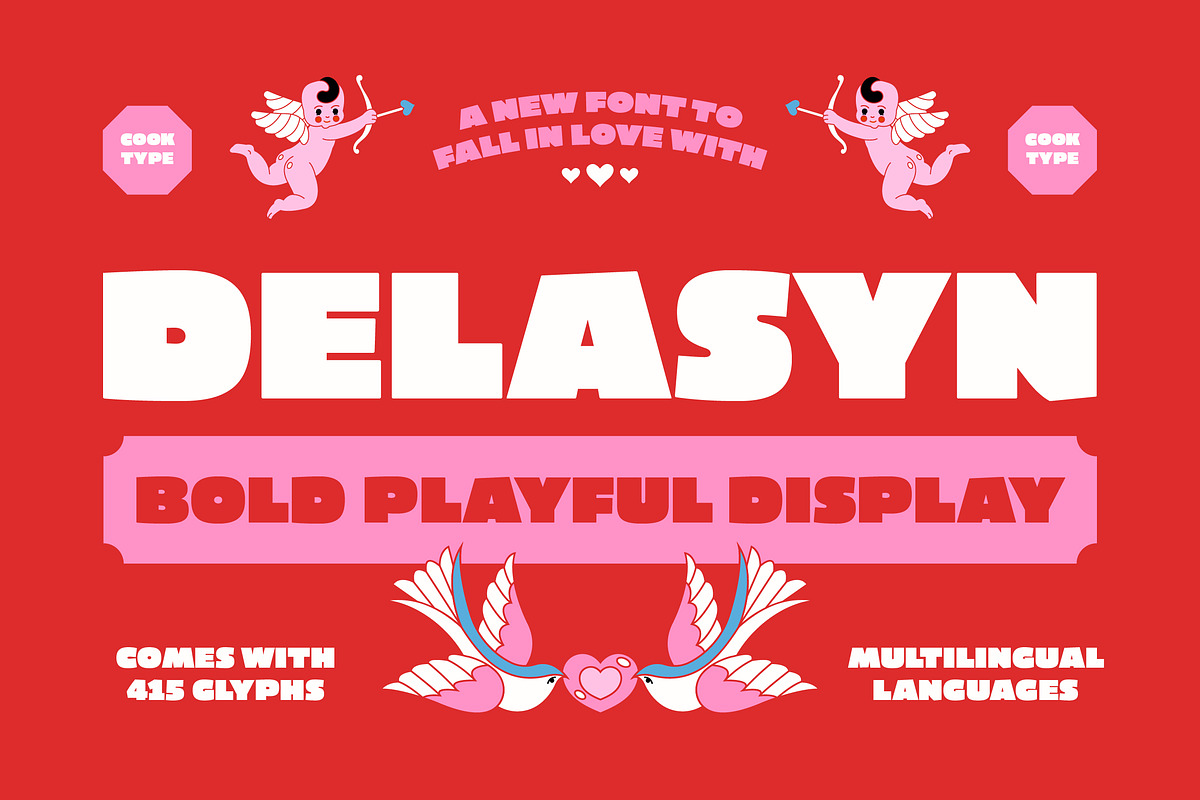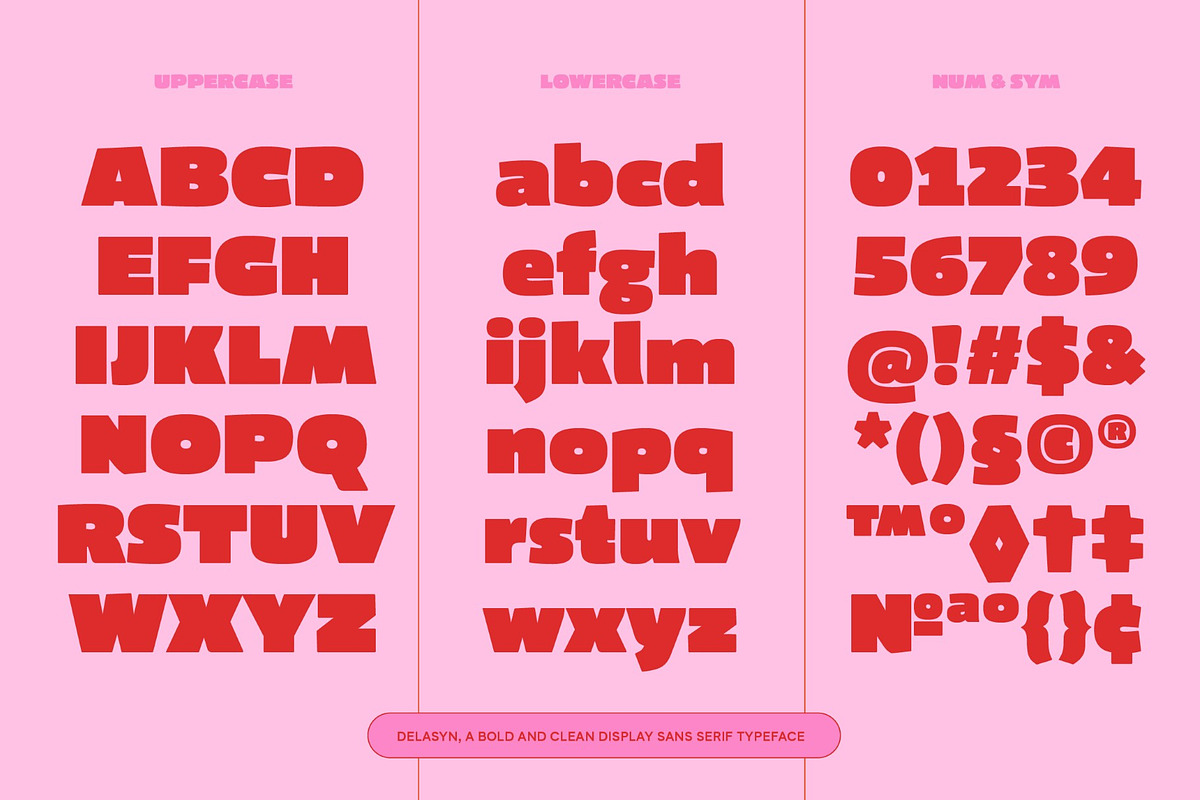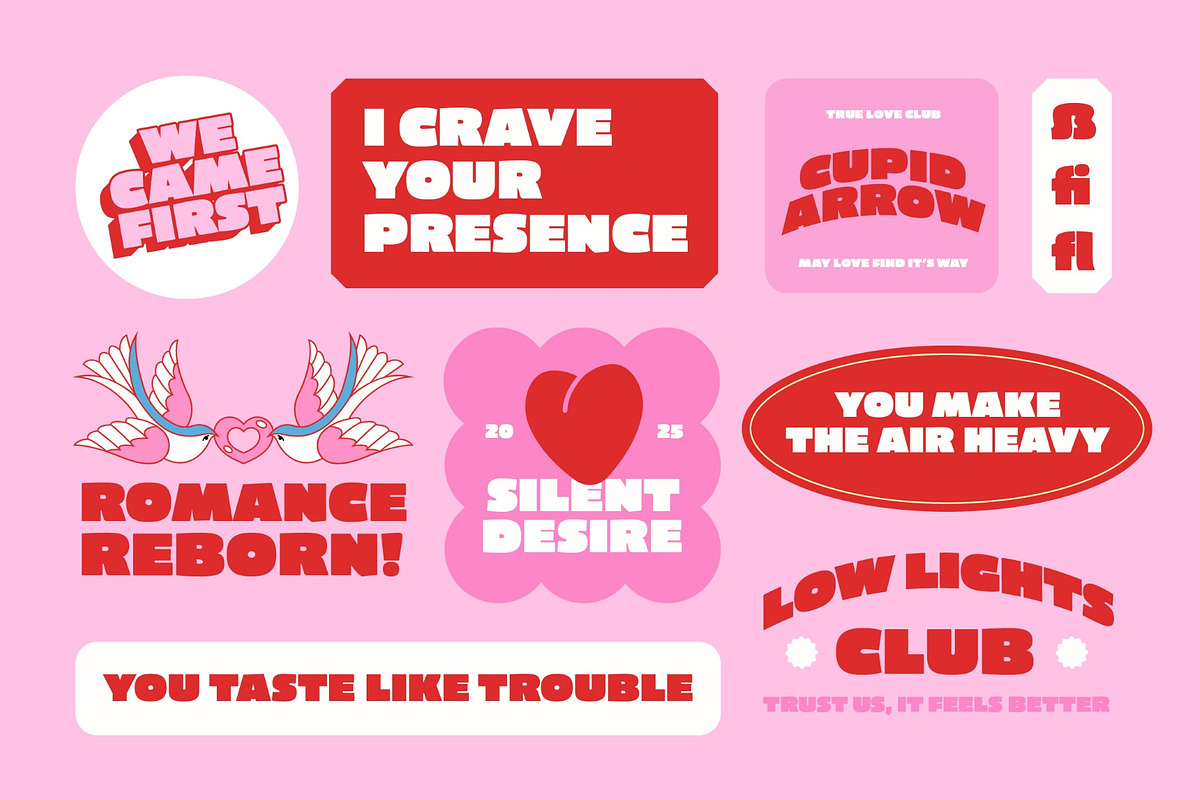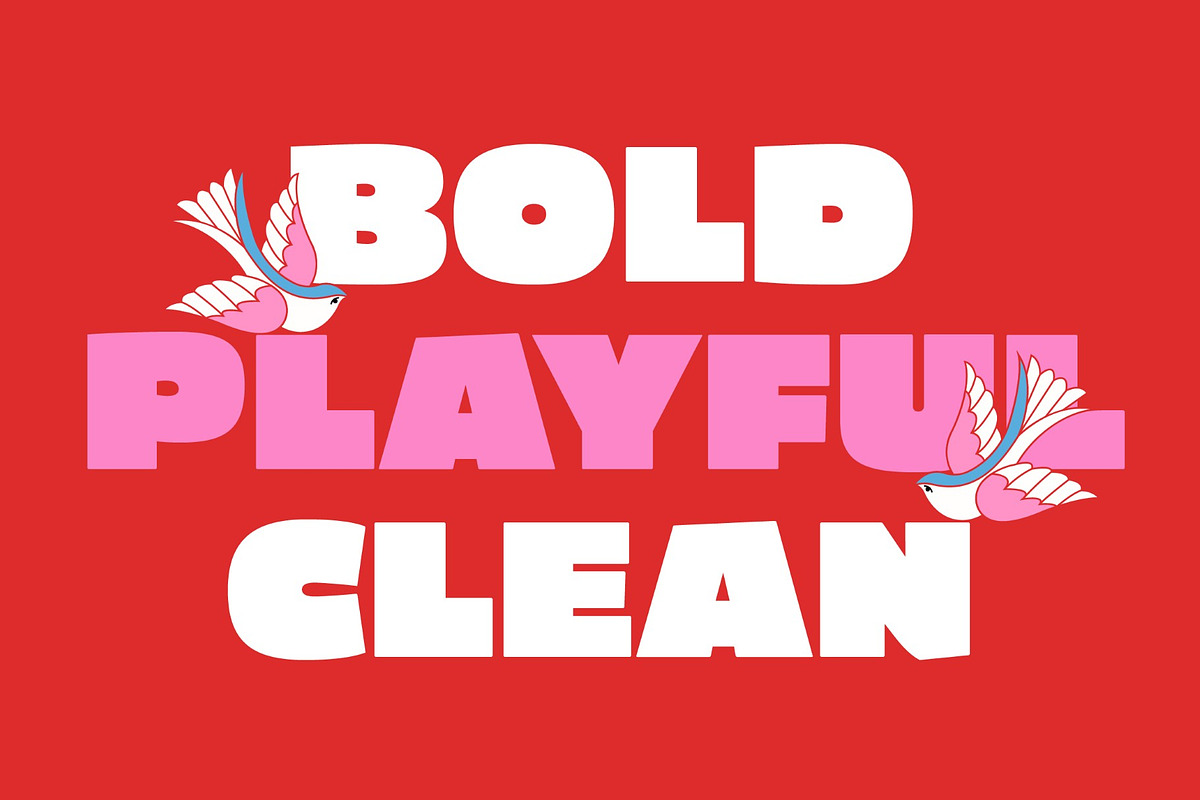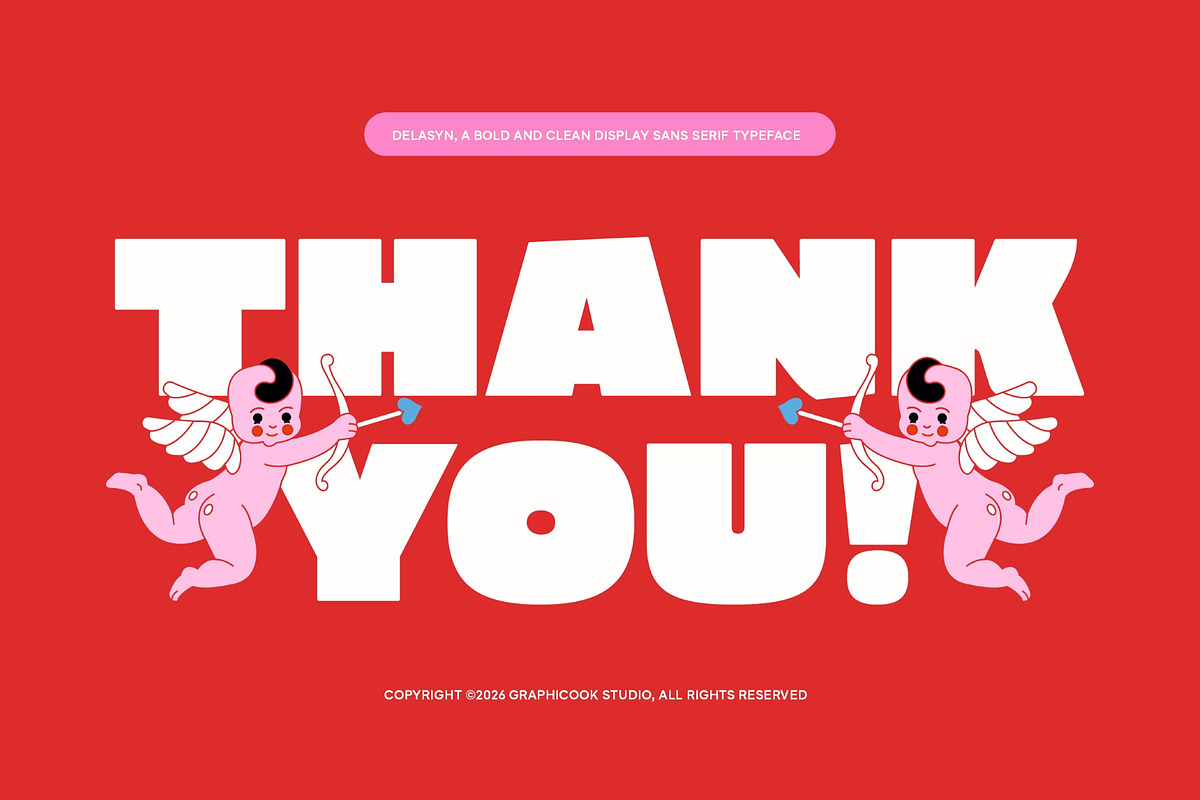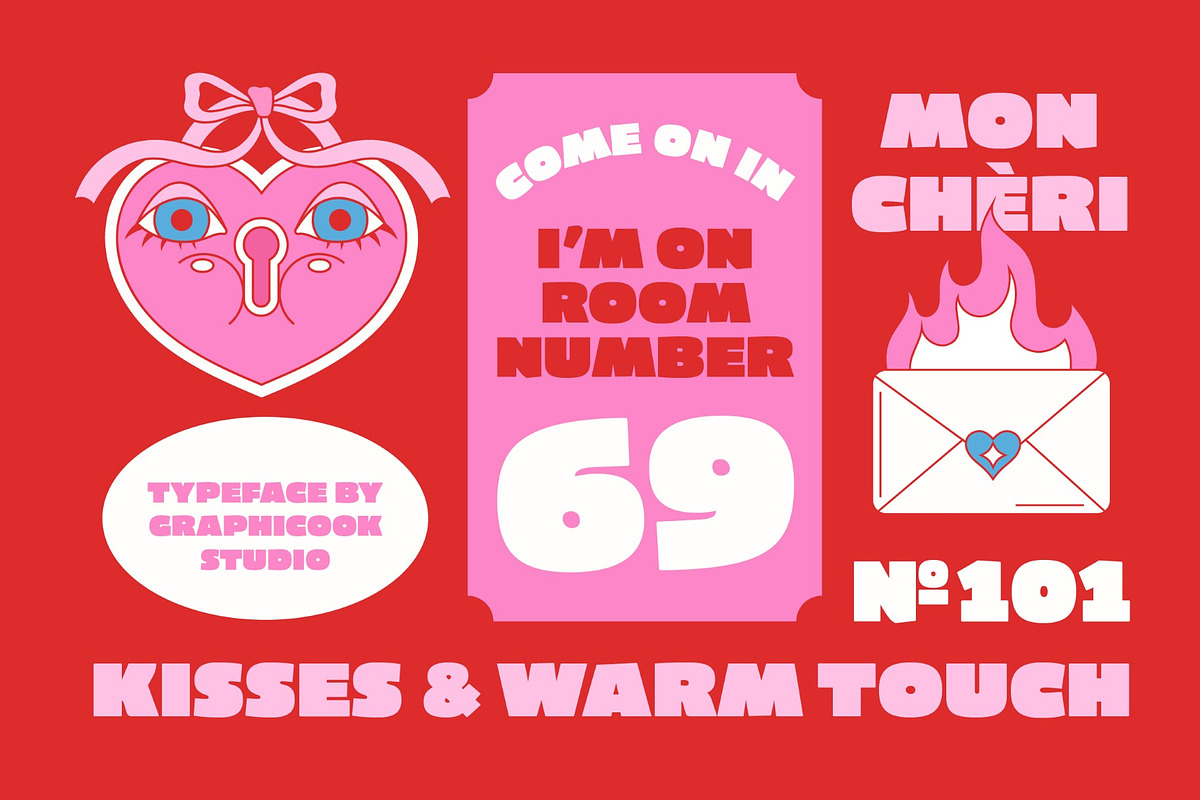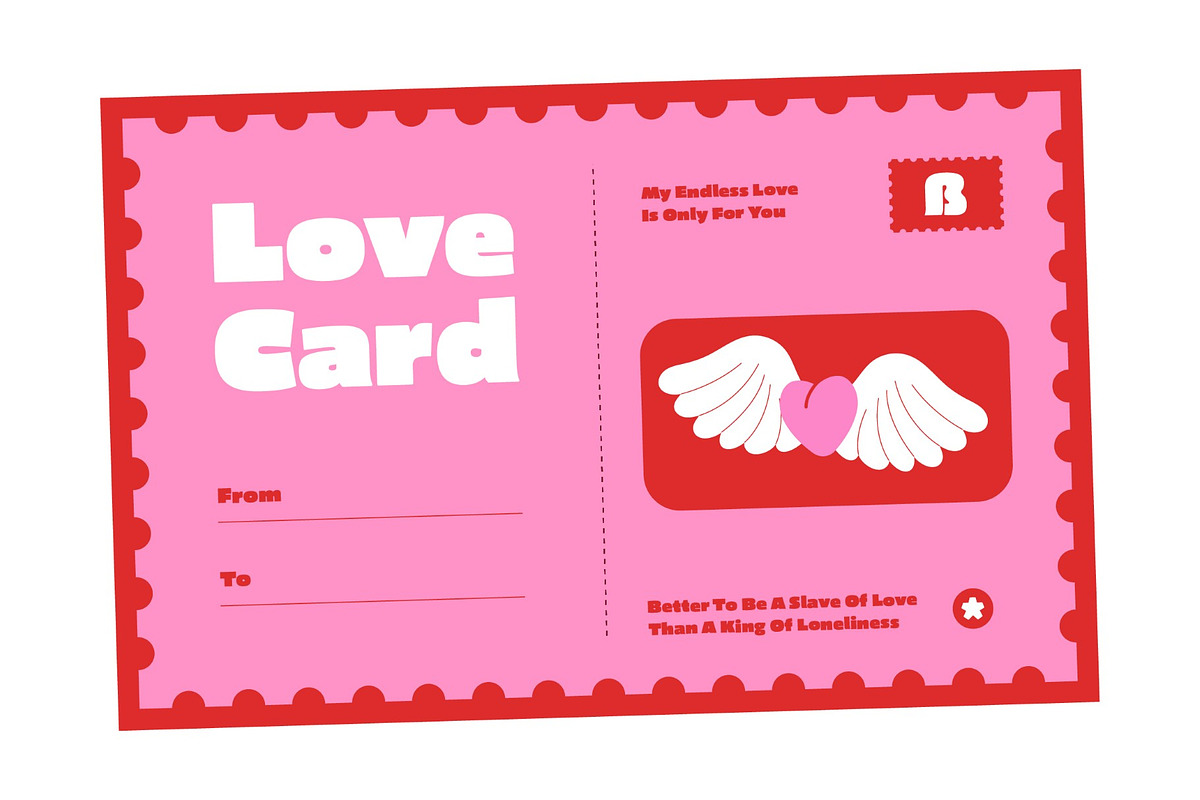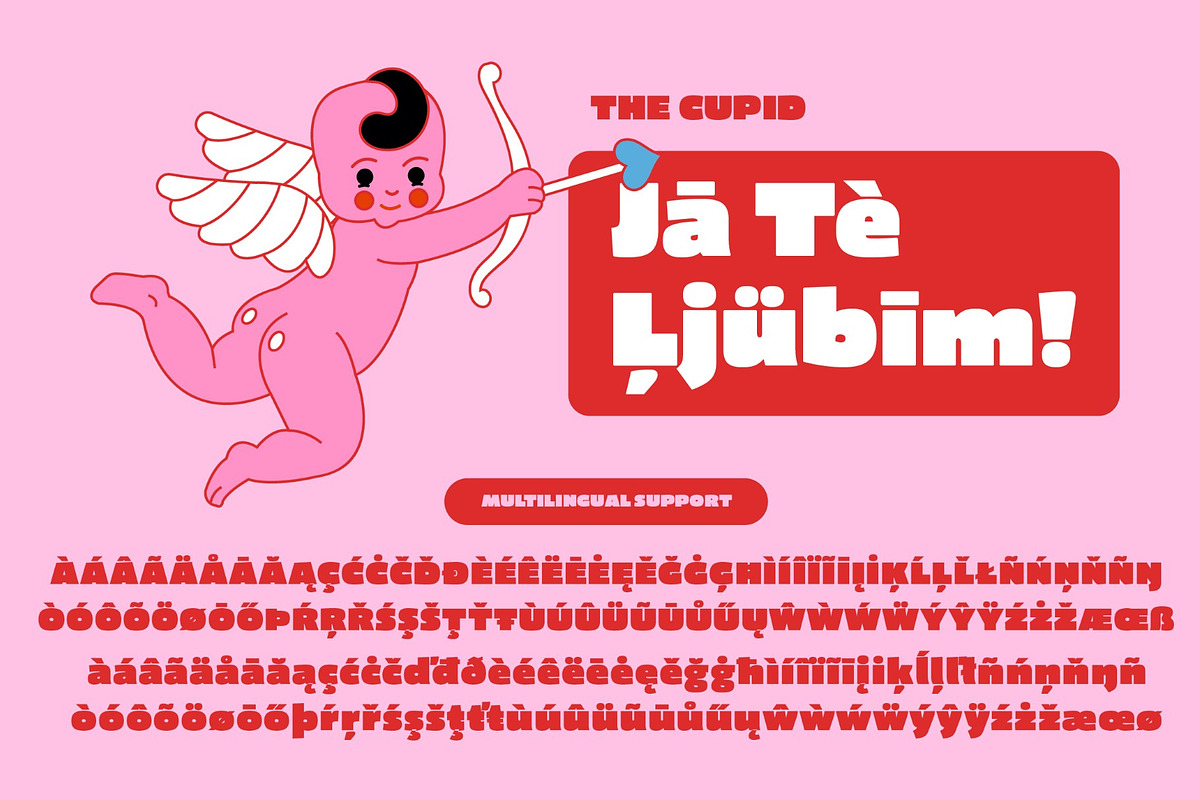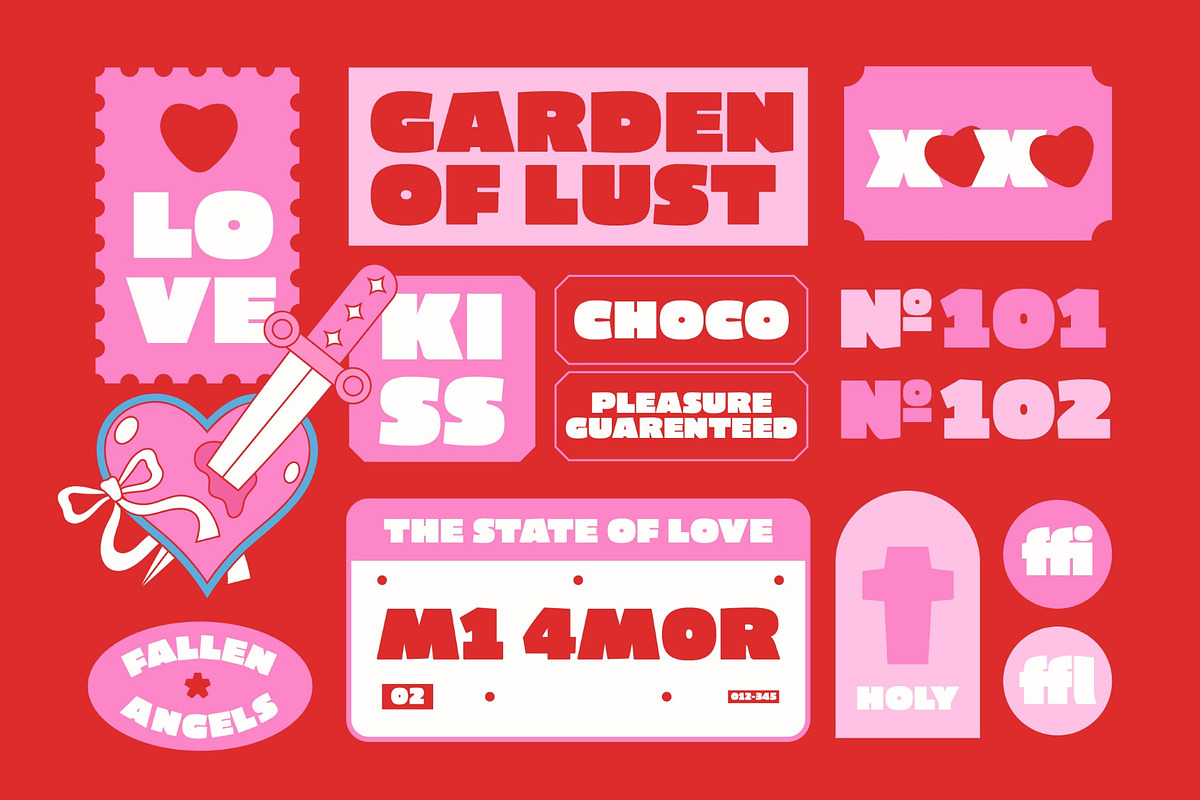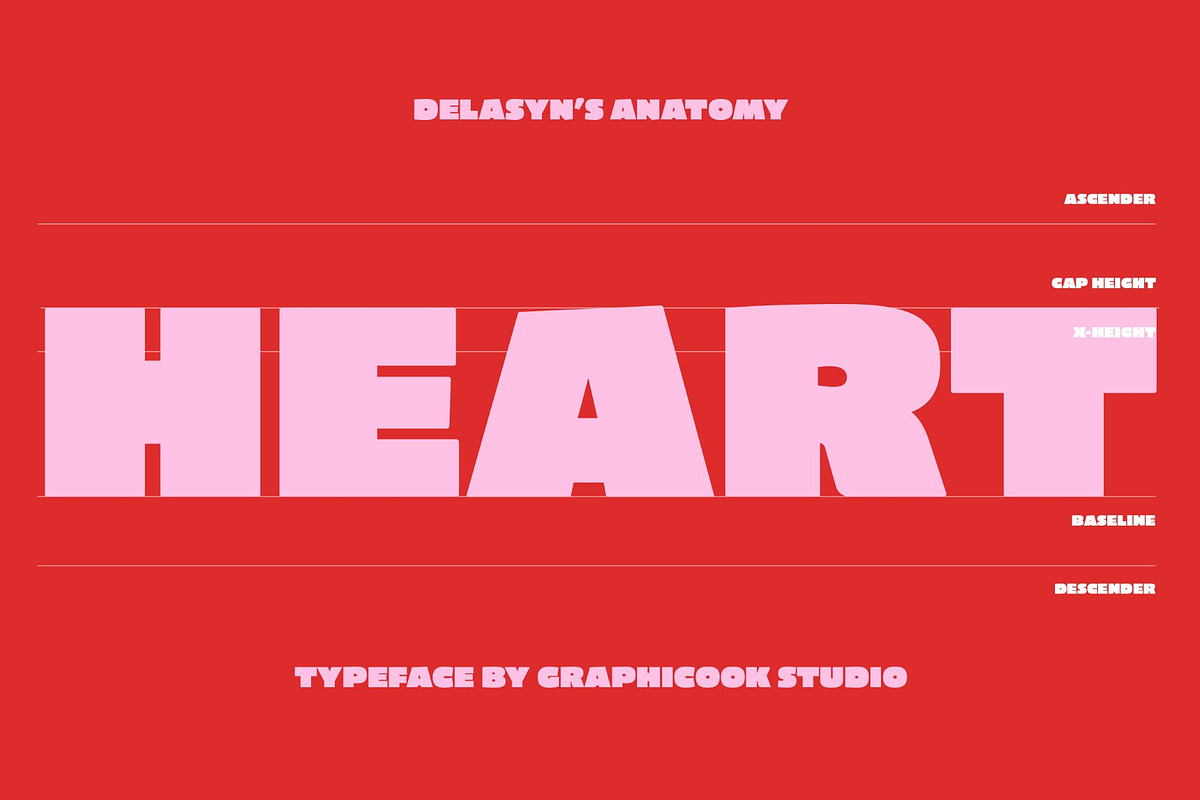
Delasyn
Delasyn is a bold, clean, and modern sans-serif display font that balances strength with warmth. Its confident yet approachable design makes it great for titles, posters, logos, and editorial layouts seeking a strong and visually engaging presence.
It is perfect for headlines, logotypes, magazines, packaging, quotes, movies, games, cover albums, book covers, and flyers, it's a perfect solution for creating eye-catching designs that stand out in any context.